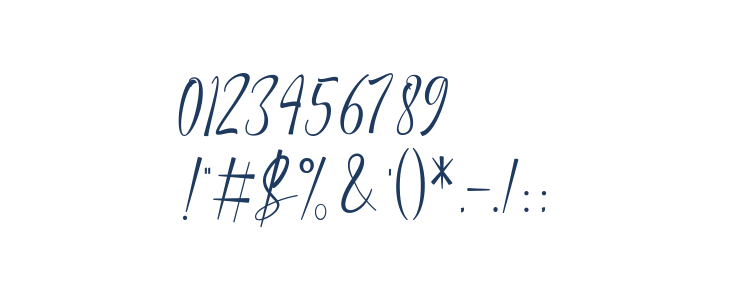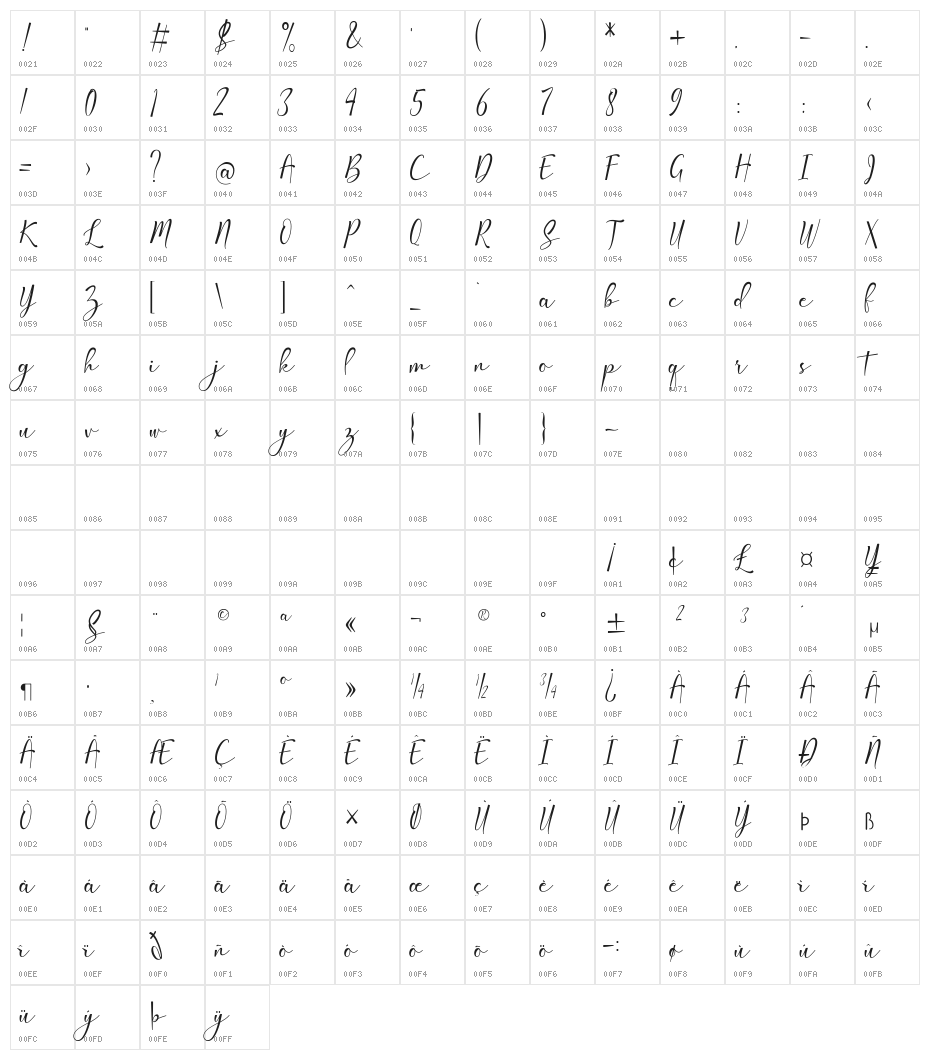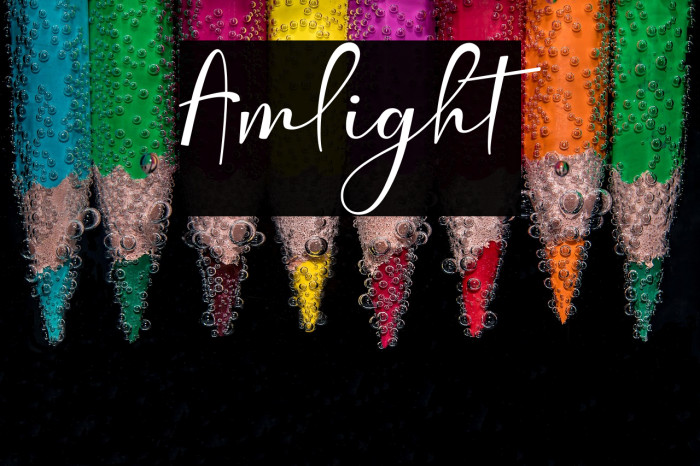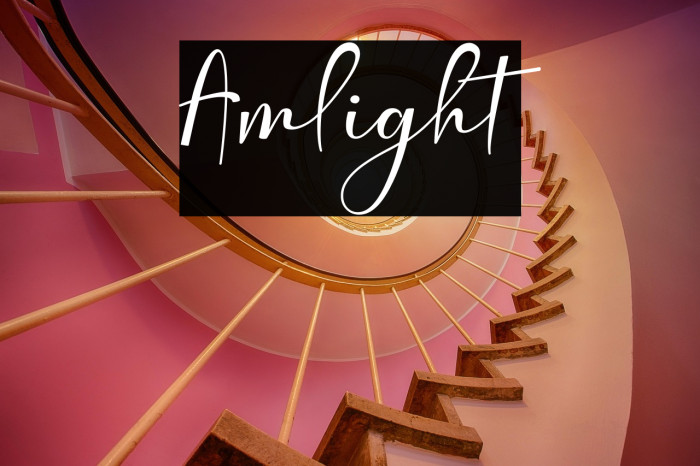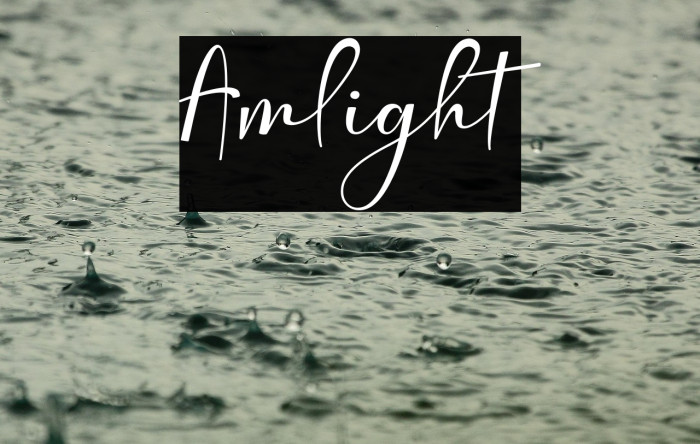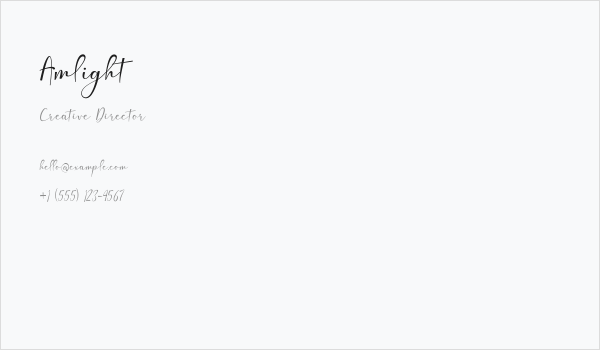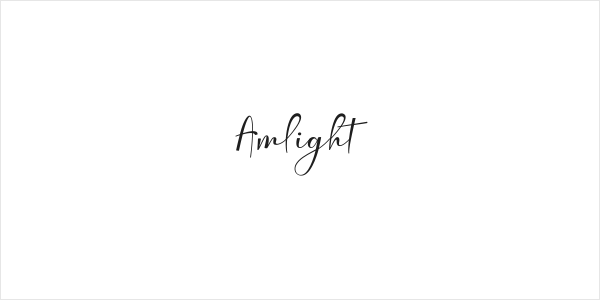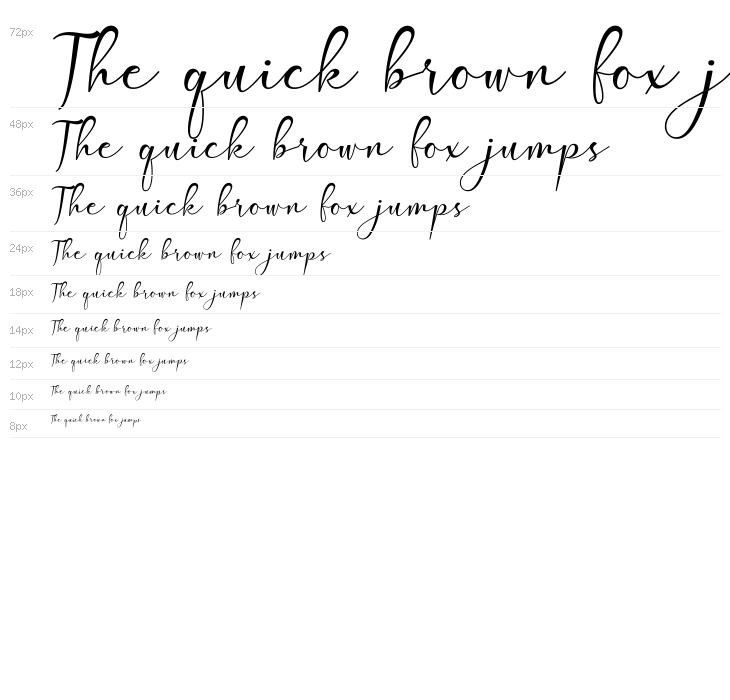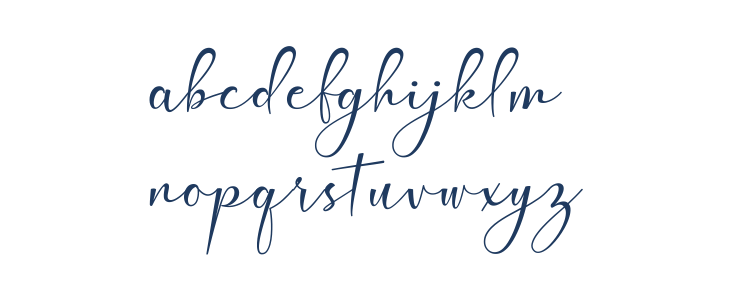
Amlight Font
Amlight Description
This font exhibits a dynamic and flowing script style, characterized by its elegant and fluid letterforms. The uppercase letters are bold and slightly slanted, with a distinctive flair that adds a sense of movement and grace. The lowercase letters maintain a consistent style, with smooth curves and a handwritten appearance that suggests a personal touch. The numerals are well-integrated into the overall design, maintaining the same flowing aesthetic. Special characters are crafted with the same attention to detail, ensuring a cohesive look across all elements. The font's overall appearance is both sophisticated and approachable, making it suitable for a variety of creative applications.
| Overall Style | Elegant, Handwritten |
| Proposed Projects | Ideal for wedding invitations, greeting cards, branding, and logo design where a personal and elegant touch is desired. |